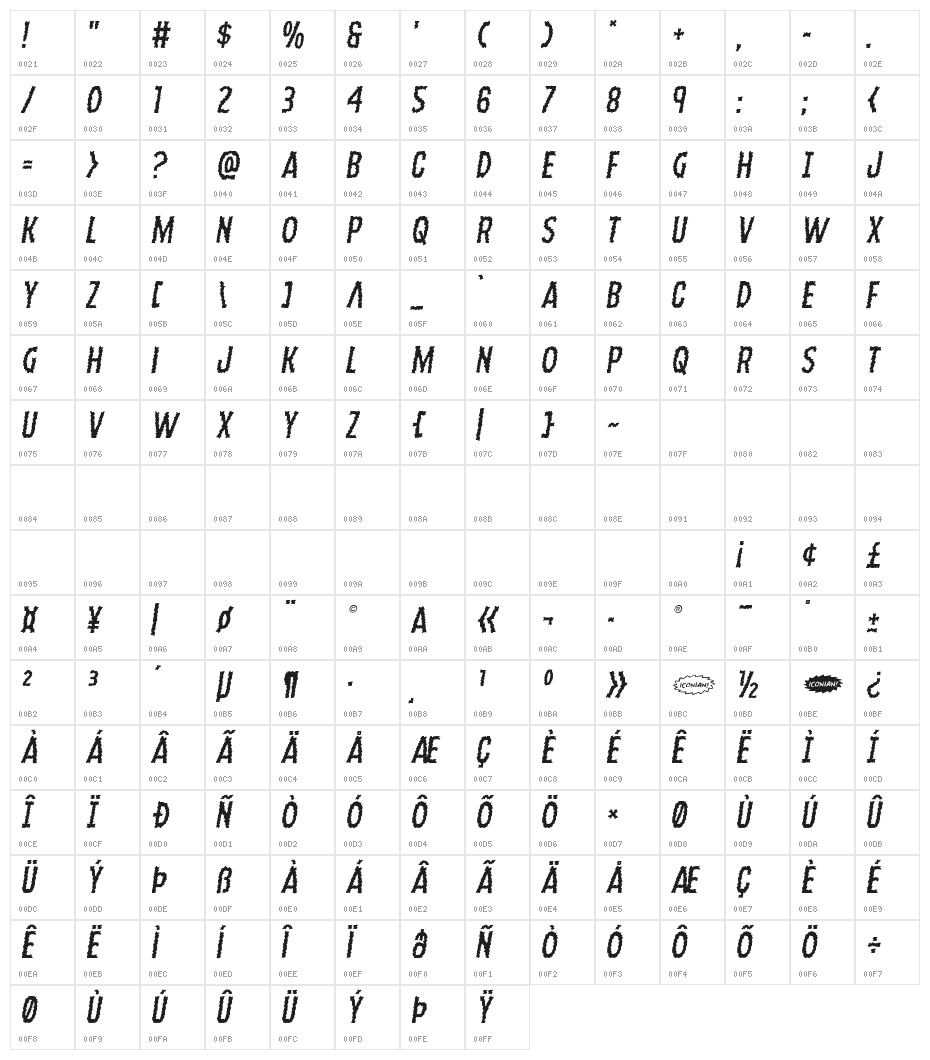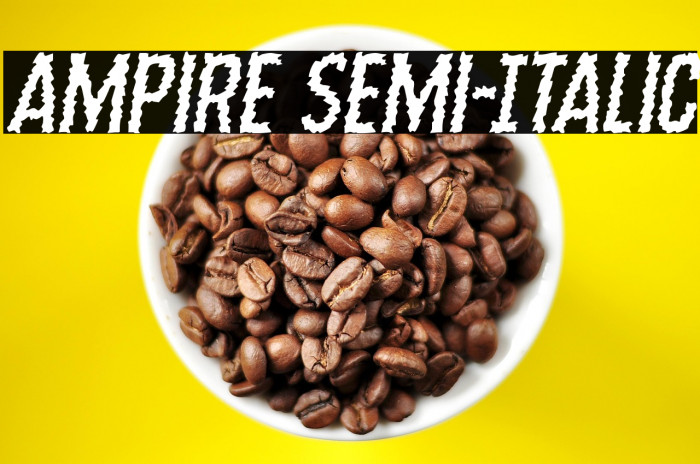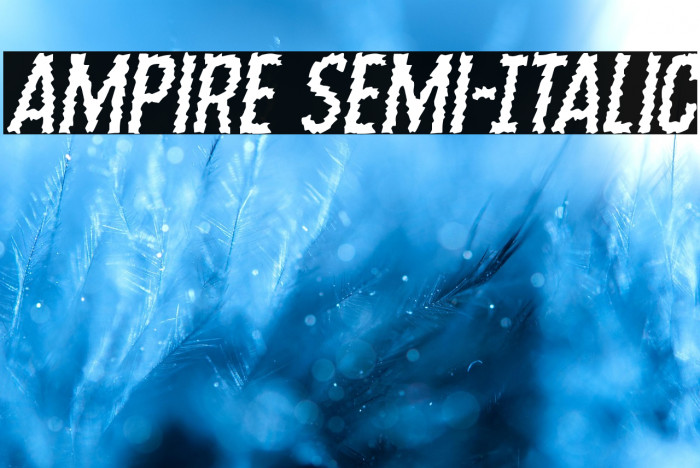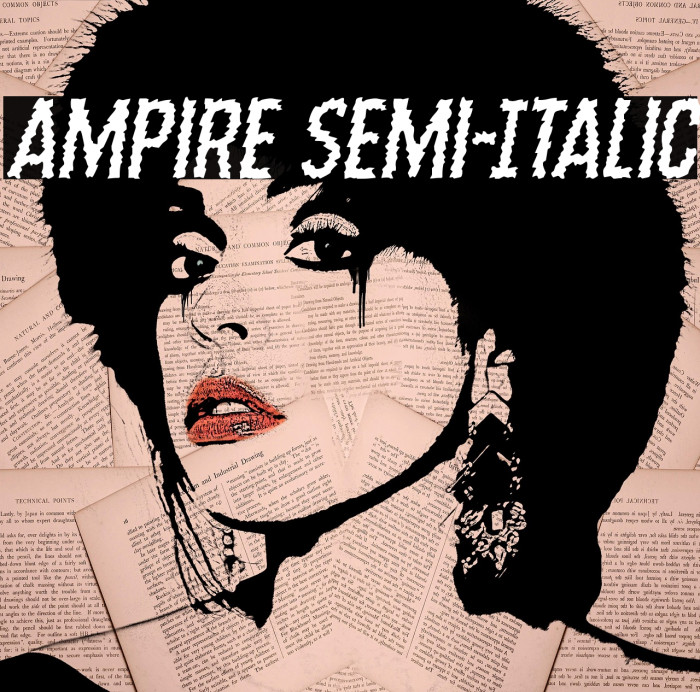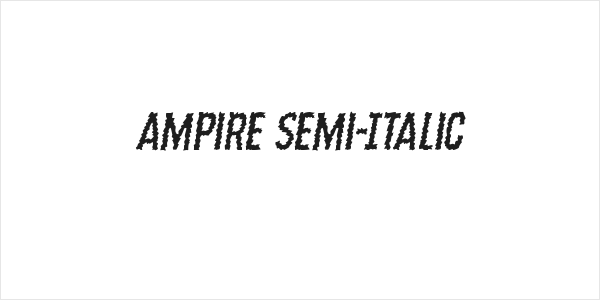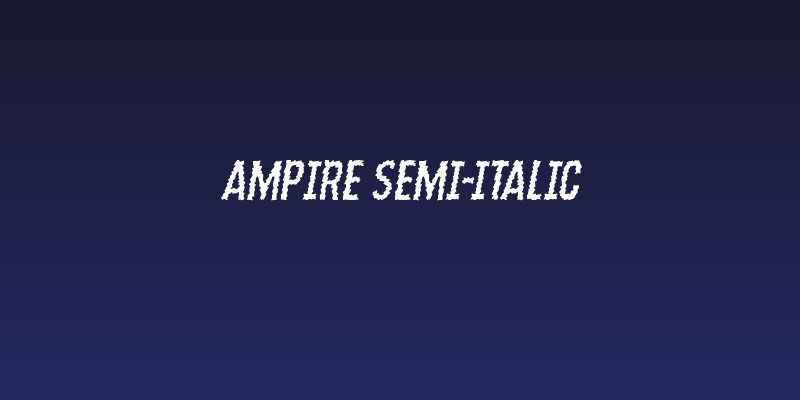
Ampire Semi-Italic Font
Ampire Semi-Italic Description
This font features a bold, jagged style with a dynamic and energetic appearance. The characters are slanted, giving an italicized effect that enhances its edgy and modern look. The strokes are uneven, creating a sense of movement and intensity. The uppercase and lowercase letters maintain a consistent style, while the numerals and special characters complement the overall design. This font is ideal for projects that require a strong visual impact and a contemporary feel.
| Proposed Projects | Ideal for music album covers, edgy branding, posters, and event flyers. |